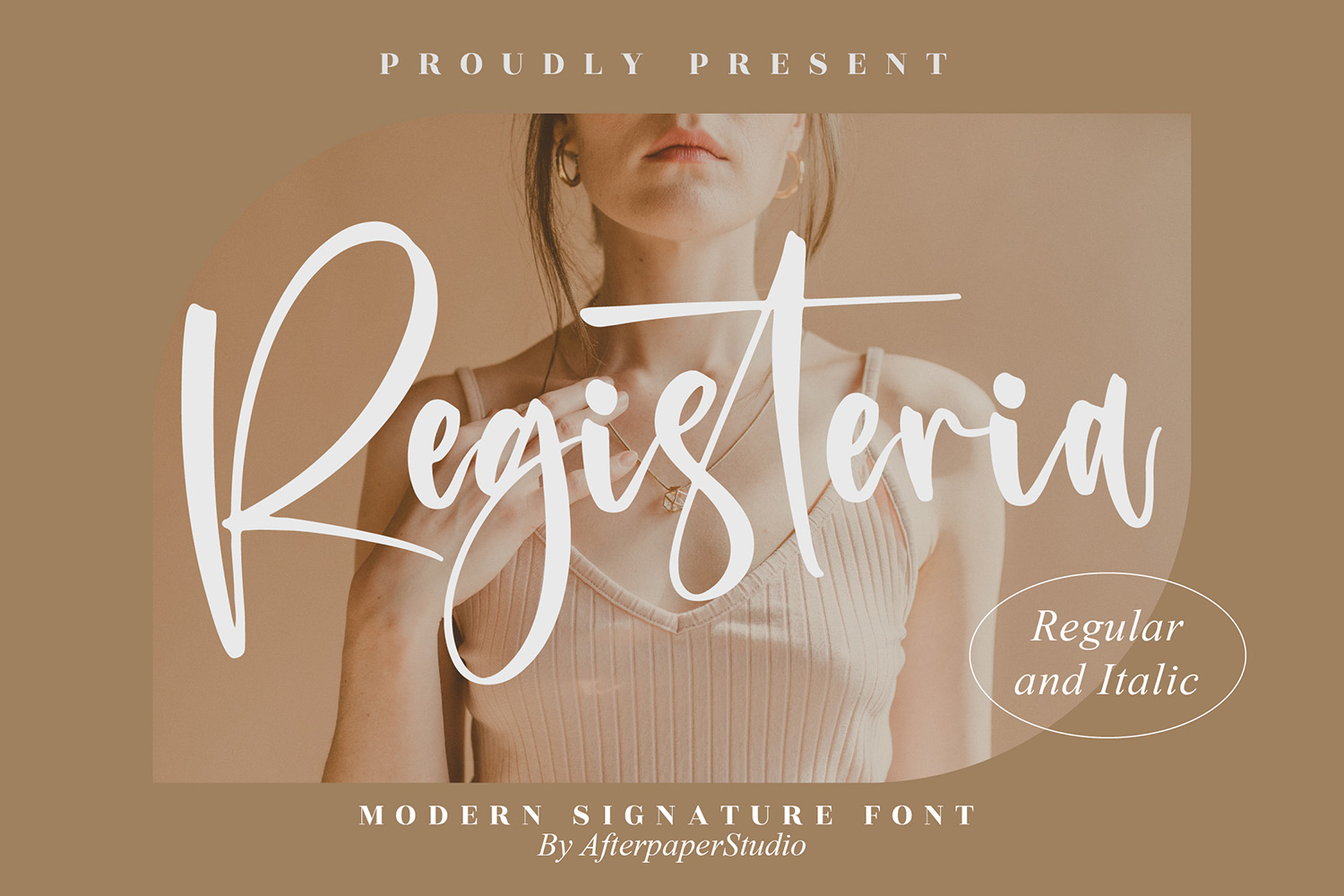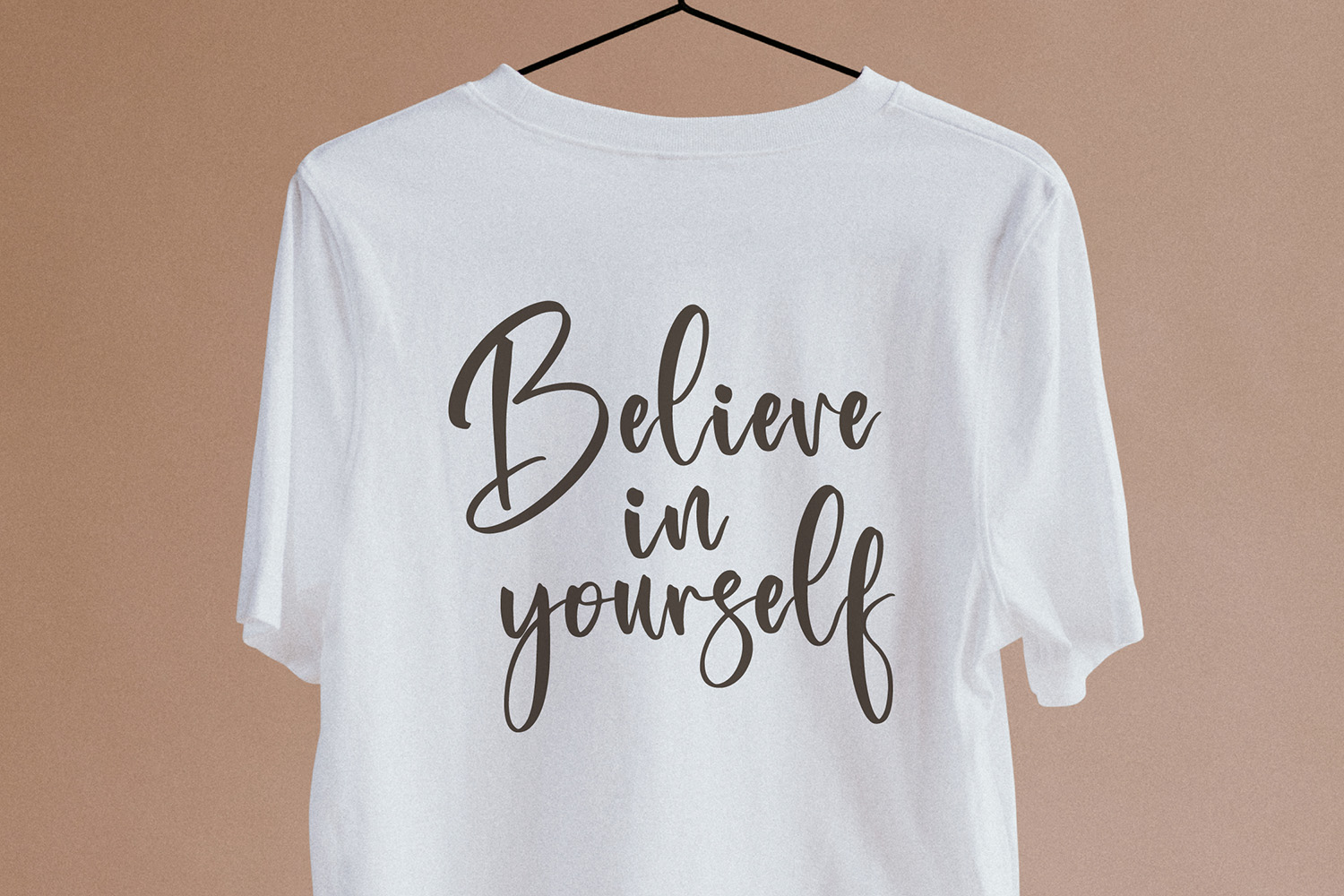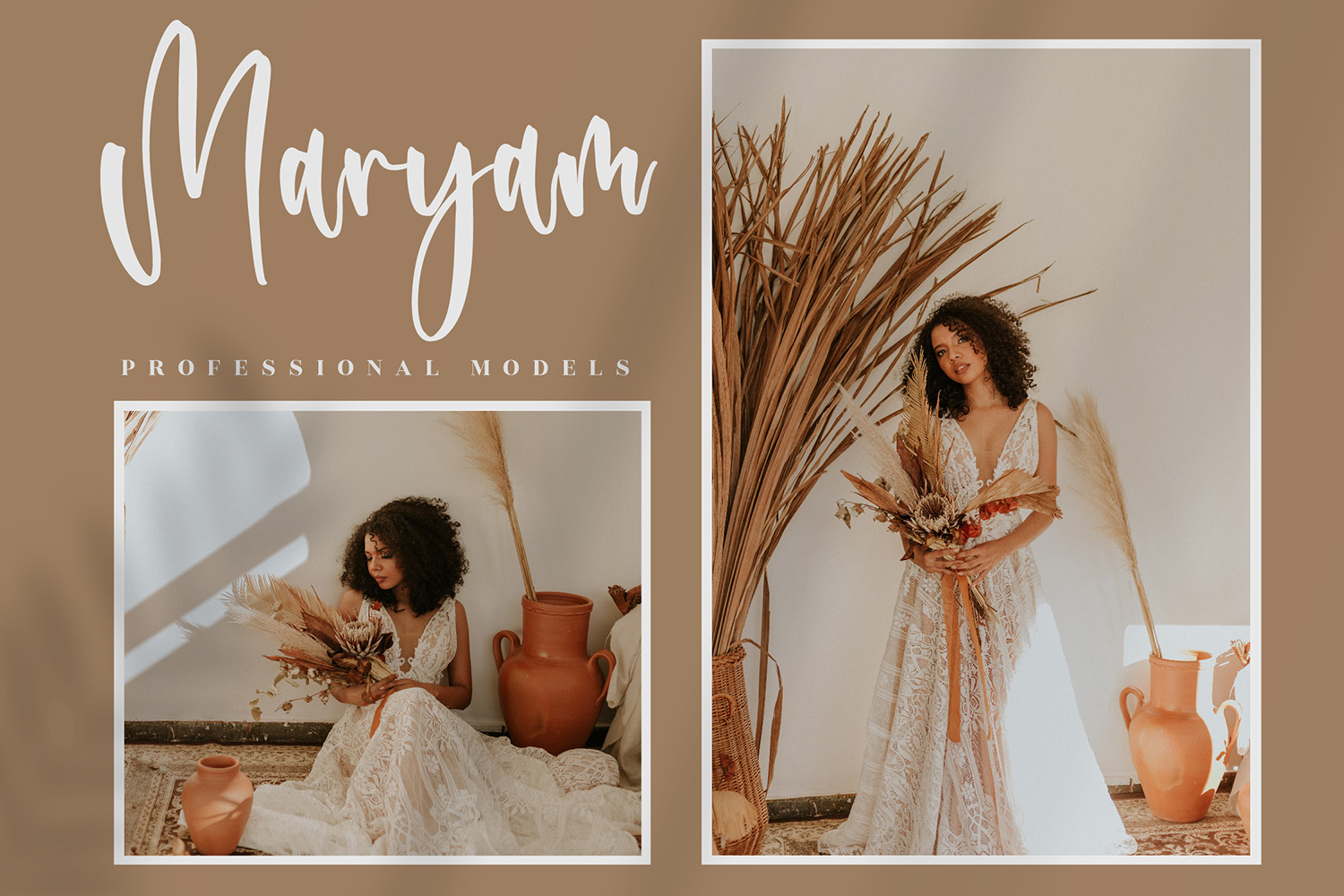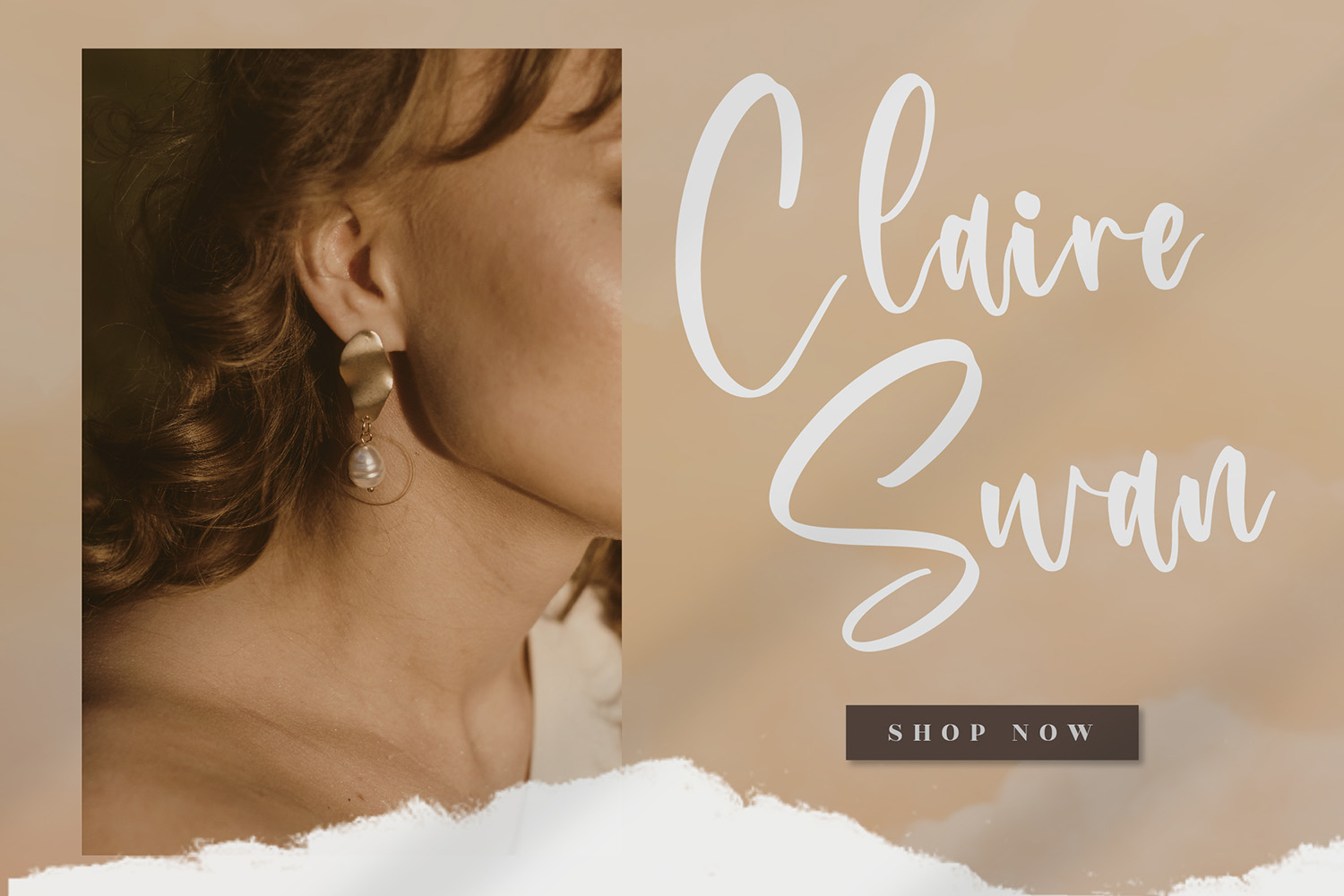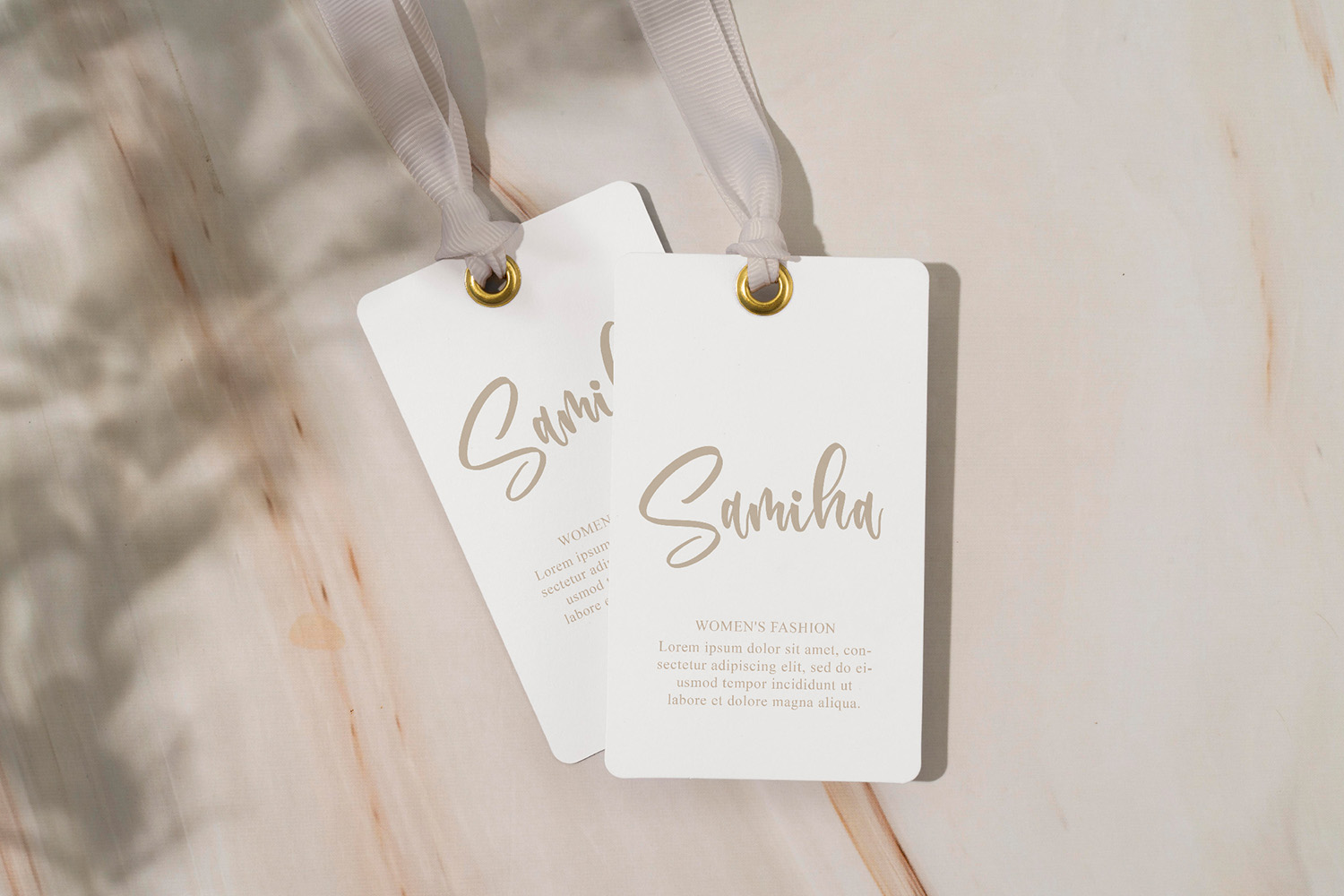
Registeria Free Font
Registeria Free Font is an interesting modern beautiful handwritten font that simulates detailed brush writing and is very suitable for creating various unique design projects that require a scripted font. These can be posters, wedding invitations, cards, branding, flyer prints, and more. If you wish to access more features and use them for commercial work please buy the full version.